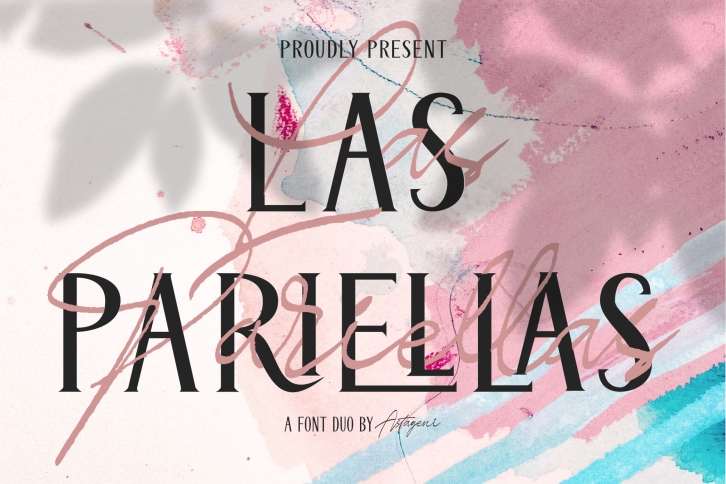
Las Pariellas Duo is a great font that was designed by Astageni. Imagine the amount of combinations you can create using this font! The archive is 10.8 MB and it was released on December 19, 2019. Las Pariellas Duo looks beautiful on wedding invitations, greeting cards, logos, posters, labels, t-shirt designs, logos, business cards and is perfect for use in ink or watercolor works, fashion, magazines, packaging and food menus, children's books and more!